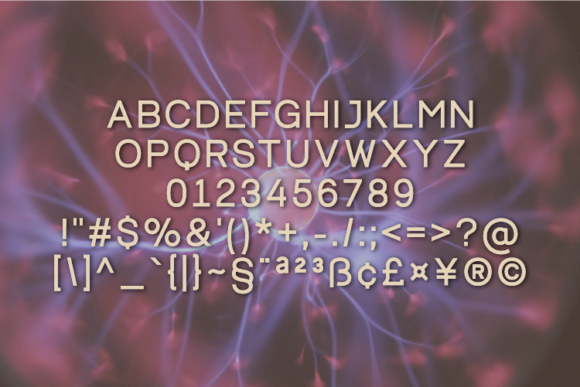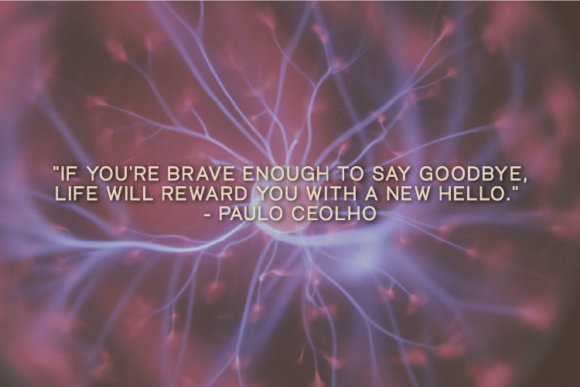
Introduction to Kosmilk Font
Kosmilk is a clean, slim and simple sans serif font.
It is perfect for product packaging, branding project, magazine covers, social media, wedding, or just used to express words above the background .
Why Choose Kosmilk Font?
Kosmilk Font offers exceptional quality and versatility, making it a valuable addition to your design toolkit. Whether you’re creating for personal projects or commercial use, Kosmilk Font delivers professional results.